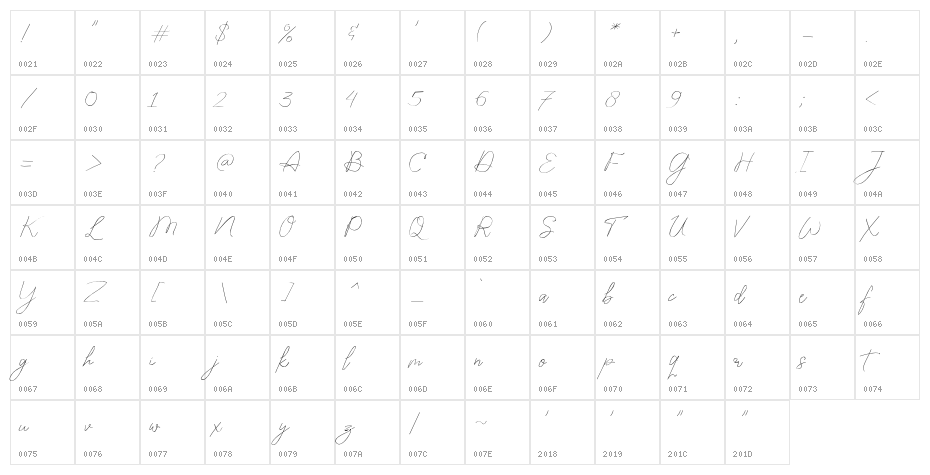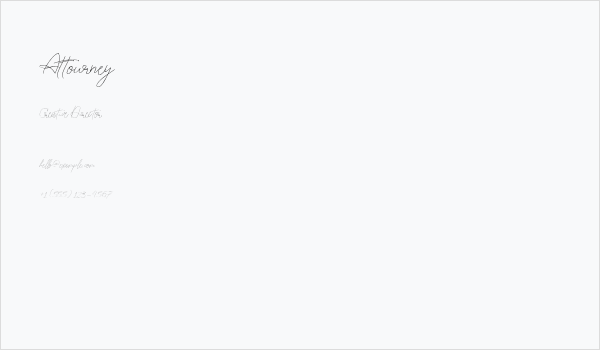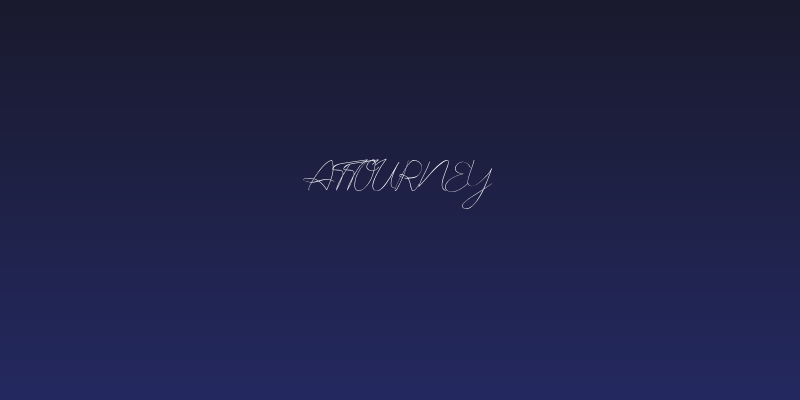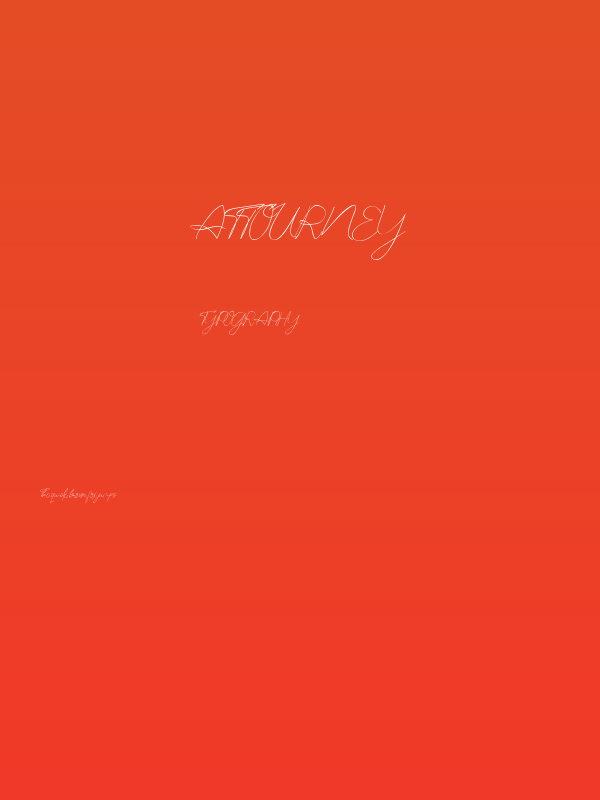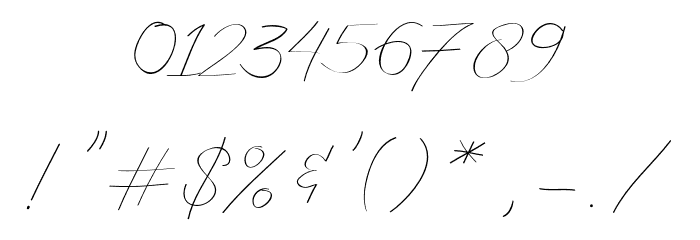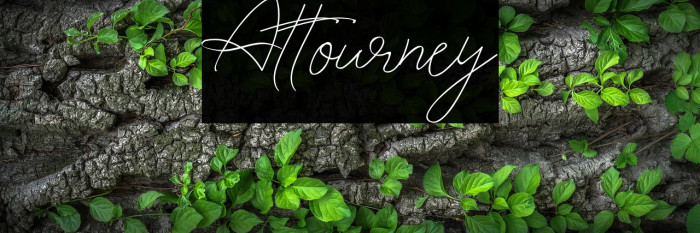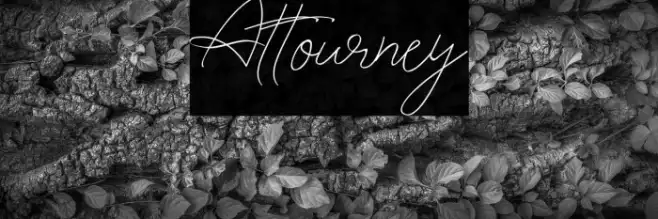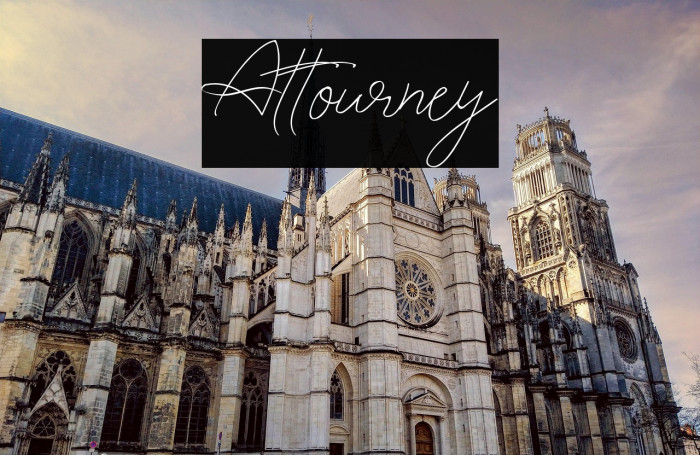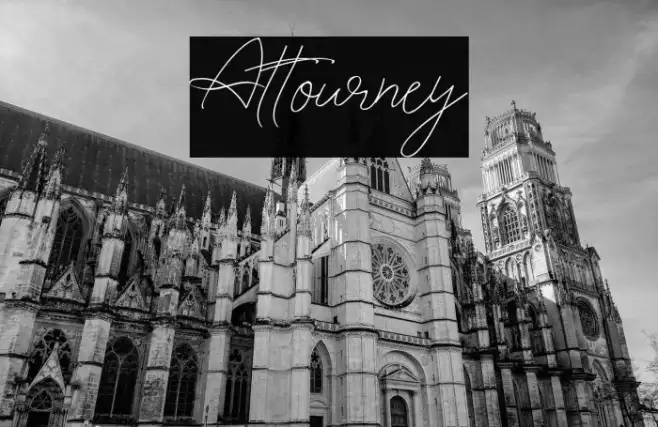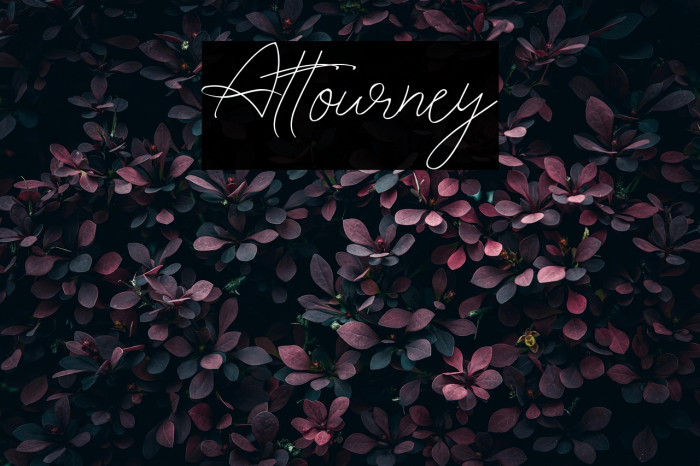
Attourney Font
Attourney Description
This font exudes elegance and sophistication with its flowing, cursive style. The letters are intricately designed with a delicate touch, featuring smooth curves and graceful loops that mimic the fluidity of handwriting. The uppercase letters are particularly ornate, with extended strokes and flourishes that add a touch of drama. The lowercase letters maintain a consistent style, ensuring readability while preserving the artistic flair. Numbers and special characters are crafted with the same attention to detail, making them seamlessly integrate with the overall design. This font is perfect for projects that require a personal, artistic touch, such as invitations, greeting cards, or branding materials.
| Overall Style | Elegant, Artistic |
| Use Case | Invitations, Artistic projects, Personal branding |
| Proposed Projects | Ideal for wedding invitations, greeting cards, personal branding, and artistic projects. |